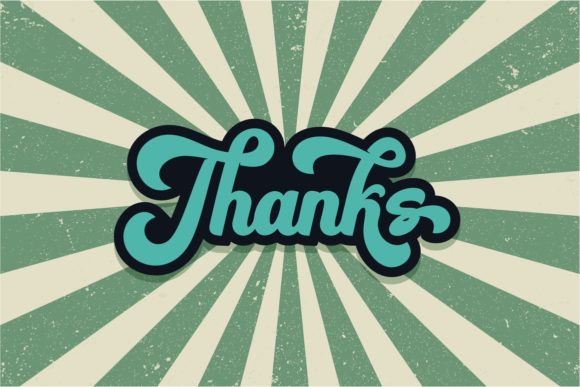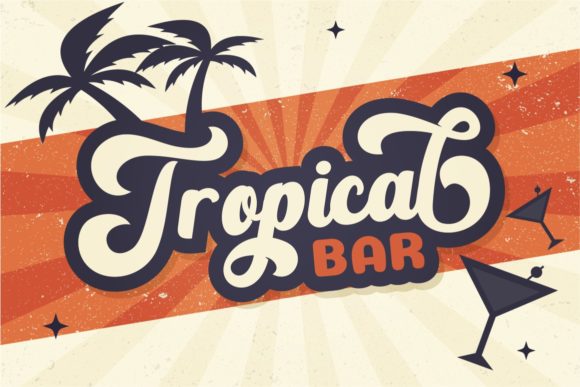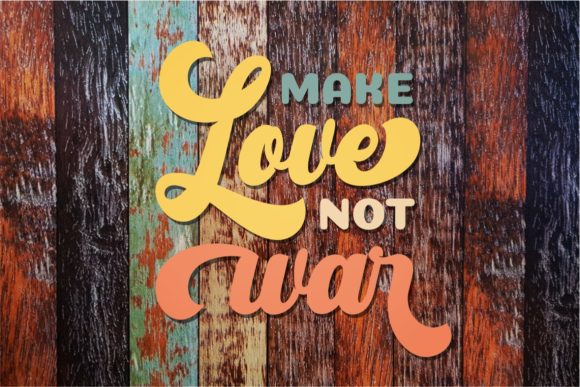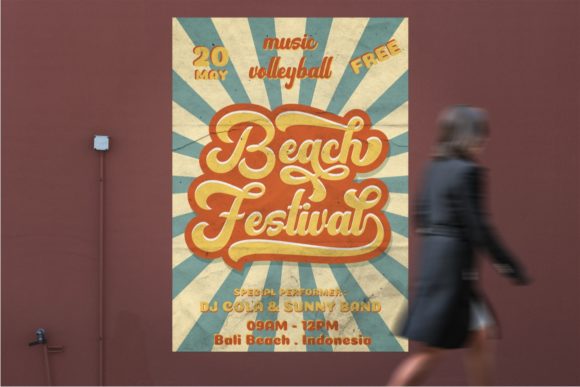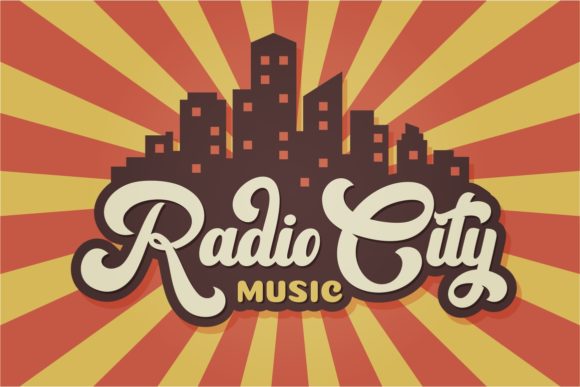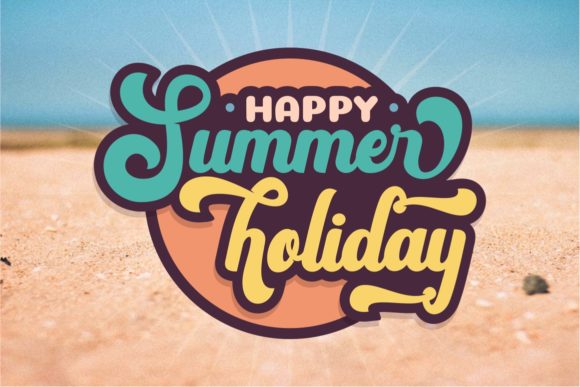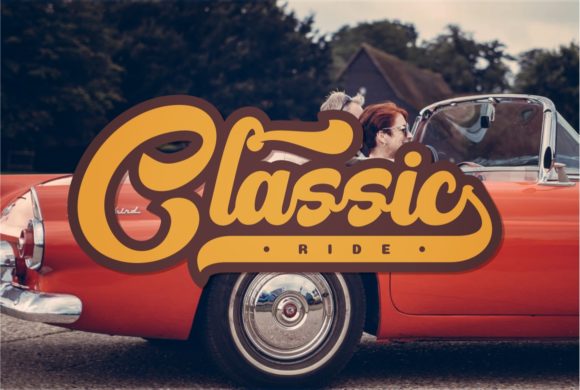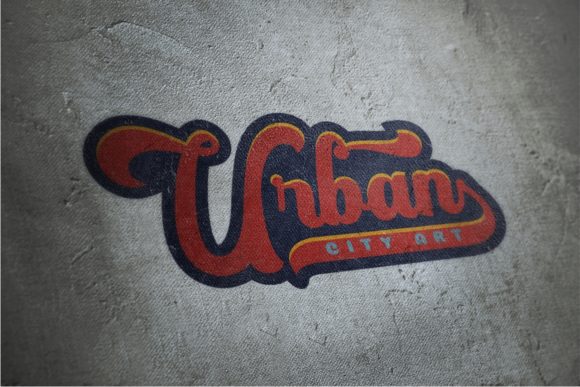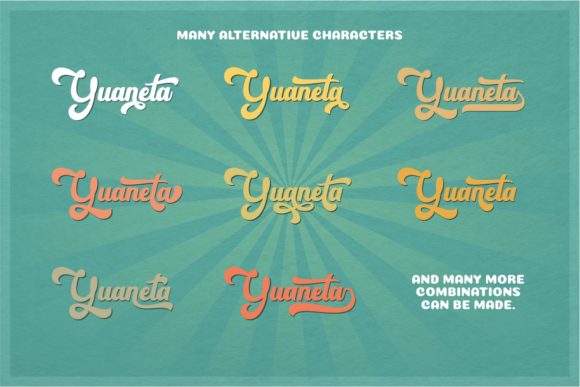
Vintage Party Font
About Vintage Party Font
The Vintage Party is an amazing bold script font. It was inspired from vintage typography from the 80’s, combined with a bold style.
It’s perfect for headings, covers, posters, logos, quotes, product packaging, merchandise, social media & greeting cards and much more!